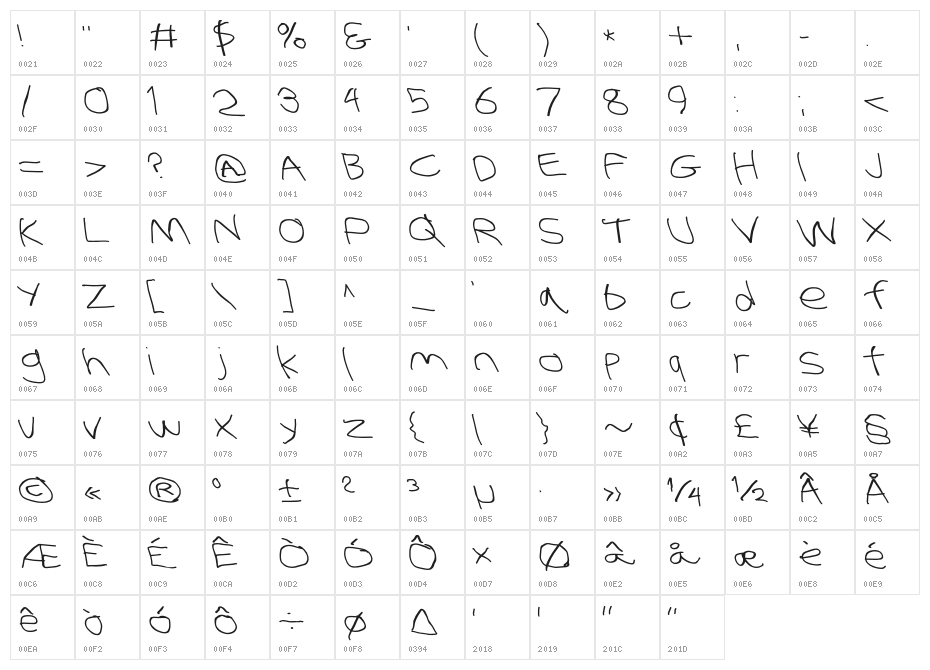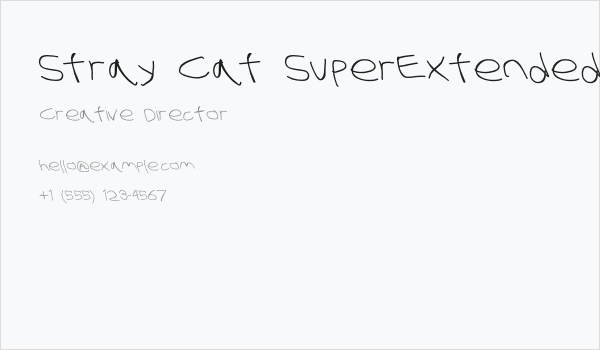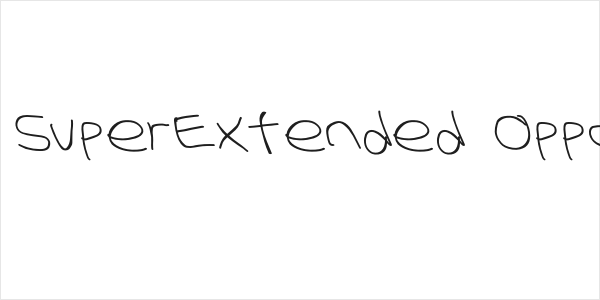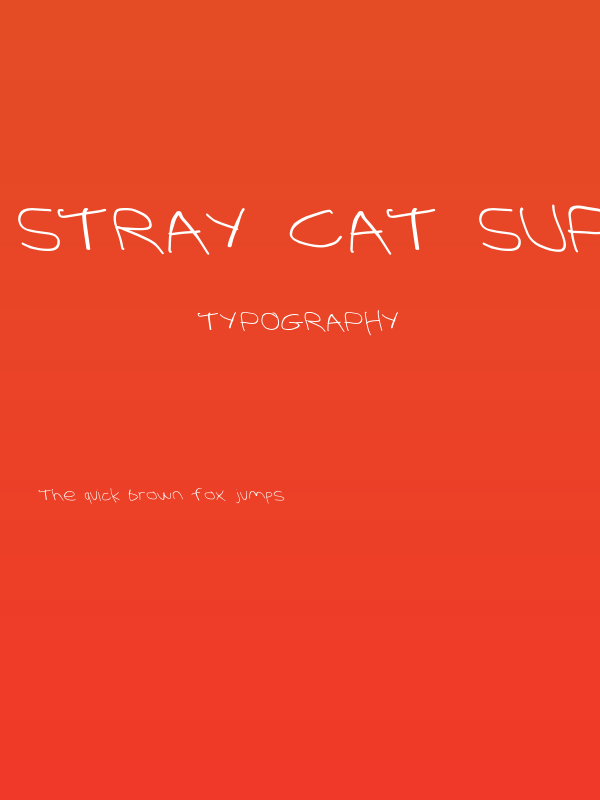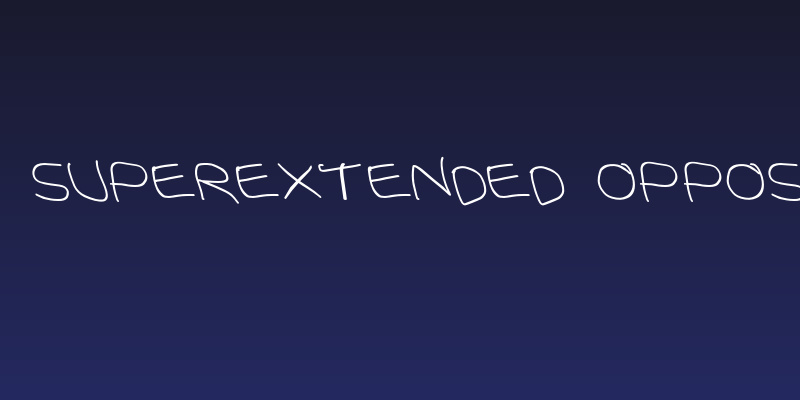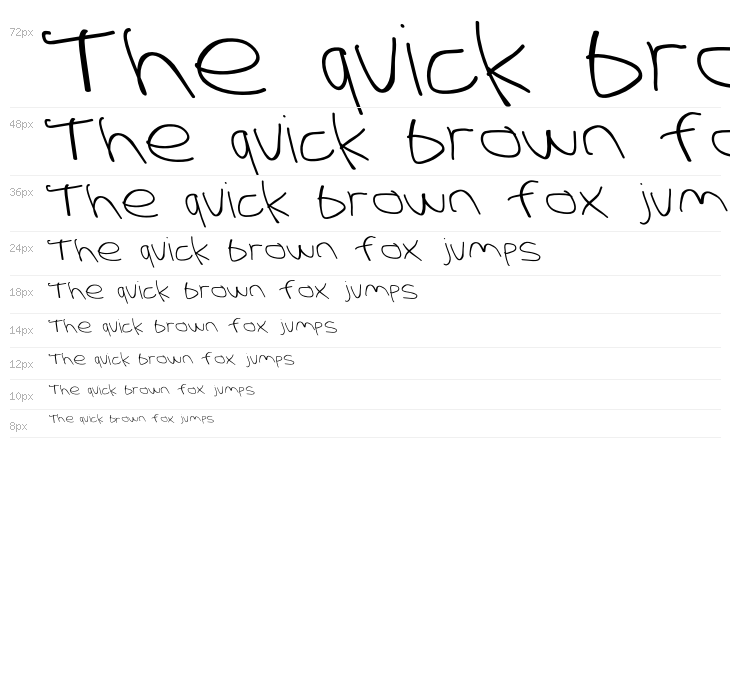
Stray Cat SuperExtended OppositeOblique Font
Stray Cat SuperExtended OppositeOblique Description
This font features a playful and casual handwritten style, characterized by its irregular and organic letterforms. The strokes are uneven, giving it a dynamic and lively appearance. The uppercase and lowercase letters maintain a consistent style, with a slightly slanted orientation that adds to its informal charm. The numerals and special characters follow the same whimsical design, making it suitable for creative and informal projects. The overall look is approachable and friendly, ideal for conveying a personal touch.
| Proposed Projects | Ideal for greeting cards, children's books, casual invitations, and playful branding. |